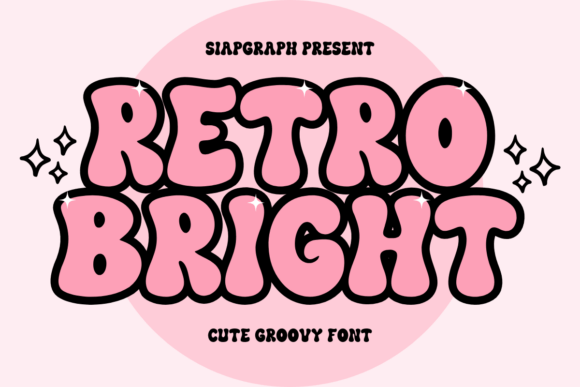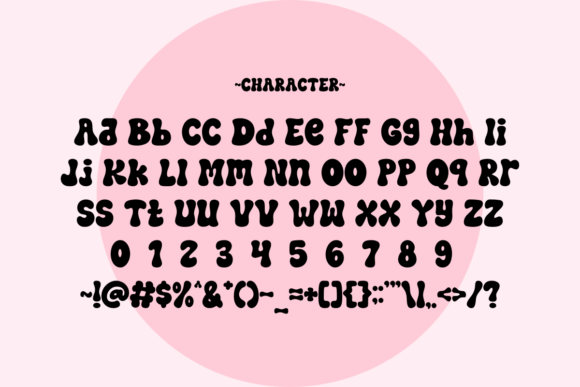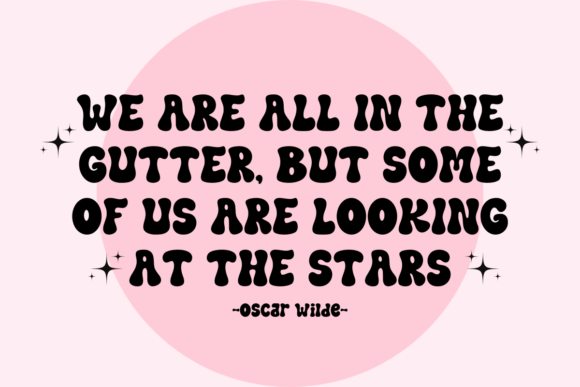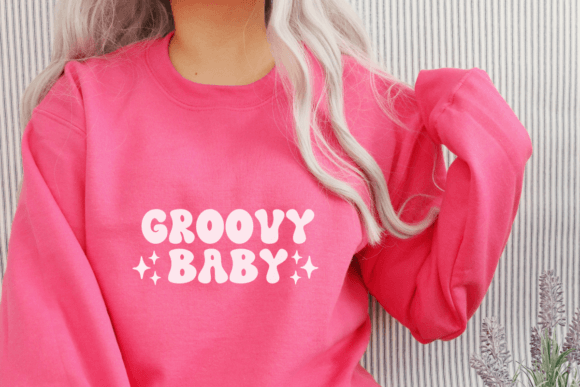
Retro Bright Font
About the Retro Bright Font
From logos to headlines, the Retro Bright Font is the perfect choice for making a lasting impression. Step back in time with Retro Bright, a cute groovy font that radiates vintage charm and joyful vibes. This bubbly and bold font is perfect for retro-inspired designs, party invitations, branding, or merchandise. With its lively and nostalgic look, Retro Bright makes any project shine with personality and fun.
Retro Bright’s bold, playful personality makes it ideal for headlines, short text blocks on posters or packaging, and eye-catching logos. It excels in projects emphasizing fun, nostalgia, and a vibrant aesthetic, such as children’s products, retro-themed events, or playful brand identities. However, its low x-height and relatively wide letterforms make it less suitable for body text or UI elements requiring high readability.
Pairing Retro Bright with a clean sans-serif like Open Sans for body copy creates a balanced contrast, maintaining the playful energy while ensuring readability. For a more vintage feel, consider pairing it with a slightly more traditional serif like Playfair Display. Alternatively, a geometric sans-serif such as Futura can provide a modern counterpoint to its retro charm.
Retro Bright Font Usage Examples
Retro Bright Font Example